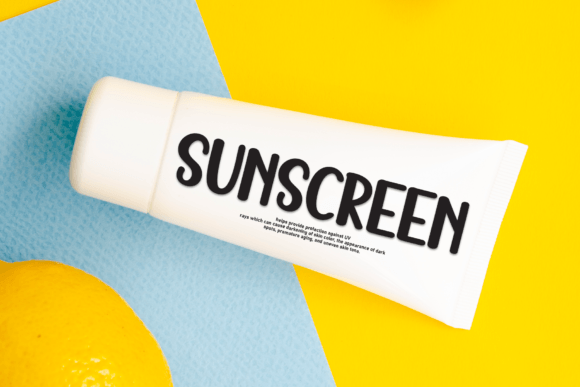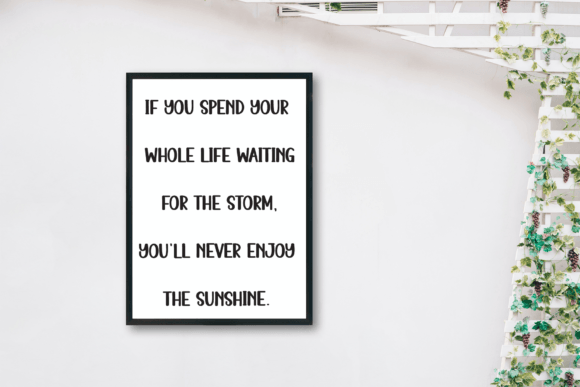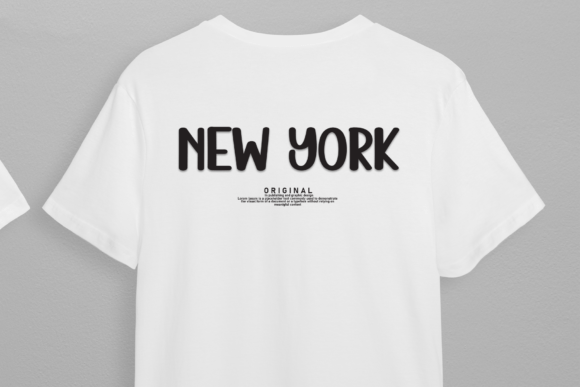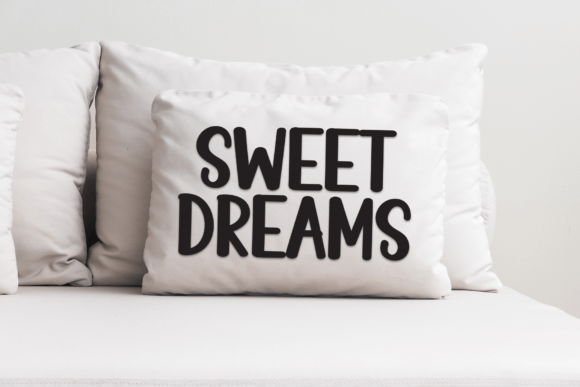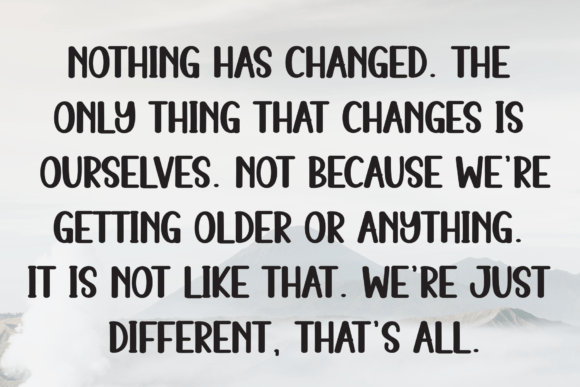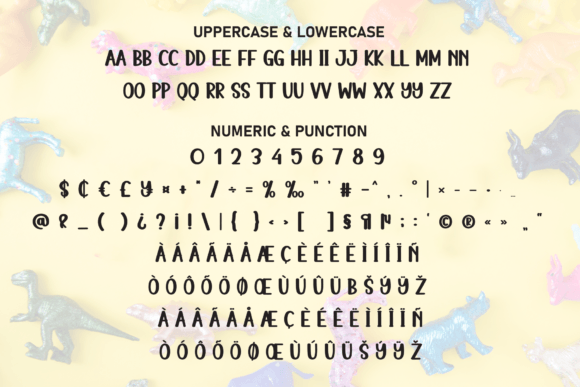
Dinosaur Font: Add a Playful Touch to Your Designs
Are you looking for a font that can add a dash of fun and whimsy to your design projects? Look no further than the Dinosaur Font! This charming, handwritten font is perfect for designers and crafters who want to create engaging and visually appealing designs that capture the imagination of their audience.
What is Dinosaur Font?
Dinosaur Font is a unique and adorable font that is designed to bring a smile to your face. Its buoyant style makes it perfect for use in wedding invitations, cards, and other design projects where you want to add a touch of personality and whimsy. The font features playful and irregular lettering that gives it a hand-drawn feel, making it perfect for designers who want to add a personal touch to their work.
Key Features of Dinosaur Font
- Charming and Handwritten: Dinosaur Font is a handwritten font that is designed to be charming and engaging. Its irregular lettering and playful style make it perfect for designers who want to add a personal touch to their work.
- Adorable and Buoyant: The font features a buoyant style that makes it perfect for use in designs where you want to add a touch of fun and whimsy.
- Perfect for Wedding Invitations and Cards: Dinosaur Font is perfect for use in wedding invitations, cards, and other design projects where you want to add a touch of personality and whimsy.
How to Use Dinosaur Font in Your Designs
Using Dinosaur Font in your designs is easy! Here are a few tips to get you started:
- Pair it with Other Fonts: Dinosaur Font can be paired with other fonts to create a unique and visually appealing design. Try pairing it with a sans-serif font for a modern look or with a script font for a more elegant look.
- Use it in Wedding Invitations: Dinosaur Font is perfect for use in wedding invitations. Try using it as a header font or as a body font to add a touch of personality to your invitation.
- Add it to Your Cards: Dinosaur Font is also perfect for use in cards. Try using it to add a personal touch to your greeting cards or postcards.
- Use it in Your Branding: Dinosaur Font can also be used in your branding materials, such as logos and business cards. Its playful style makes it perfect for businesses that want to add a touch of personality to their brand.
Benefits of Using Dinosaur Font
There are many benefits to using Dinosaur Font in your designs. Here are a few:
- Adds a Touch of Personality: Dinosaur Font adds a touch of personality to your designs, making them more engaging and visually appealing.
- Perfect for Whimsical Designs: The font is perfect for designers who want to create whimsical and playful designs that capture the imagination of their audience.
- Easy to Read: Despite its playful style, Dinosaur Font is easy to read, making it perfect for use in body text.
- Versatile: Dinosaur Font can be used in a variety of design projects, from wedding invitations to branding materials.
In conclusion, Dinosaur Font is a charming and playful font that is perfect for designers and crafters who want to add a touch of fun and whimsy to their designs. Its adorable and buoyant style makes it perfect for use in wedding invitations, cards, and other design projects where you want to add a touch of personality and whimsy. With its easy-to-use design and versatile style, Dinosaur Font is a great addition to any designer’s toolkit.